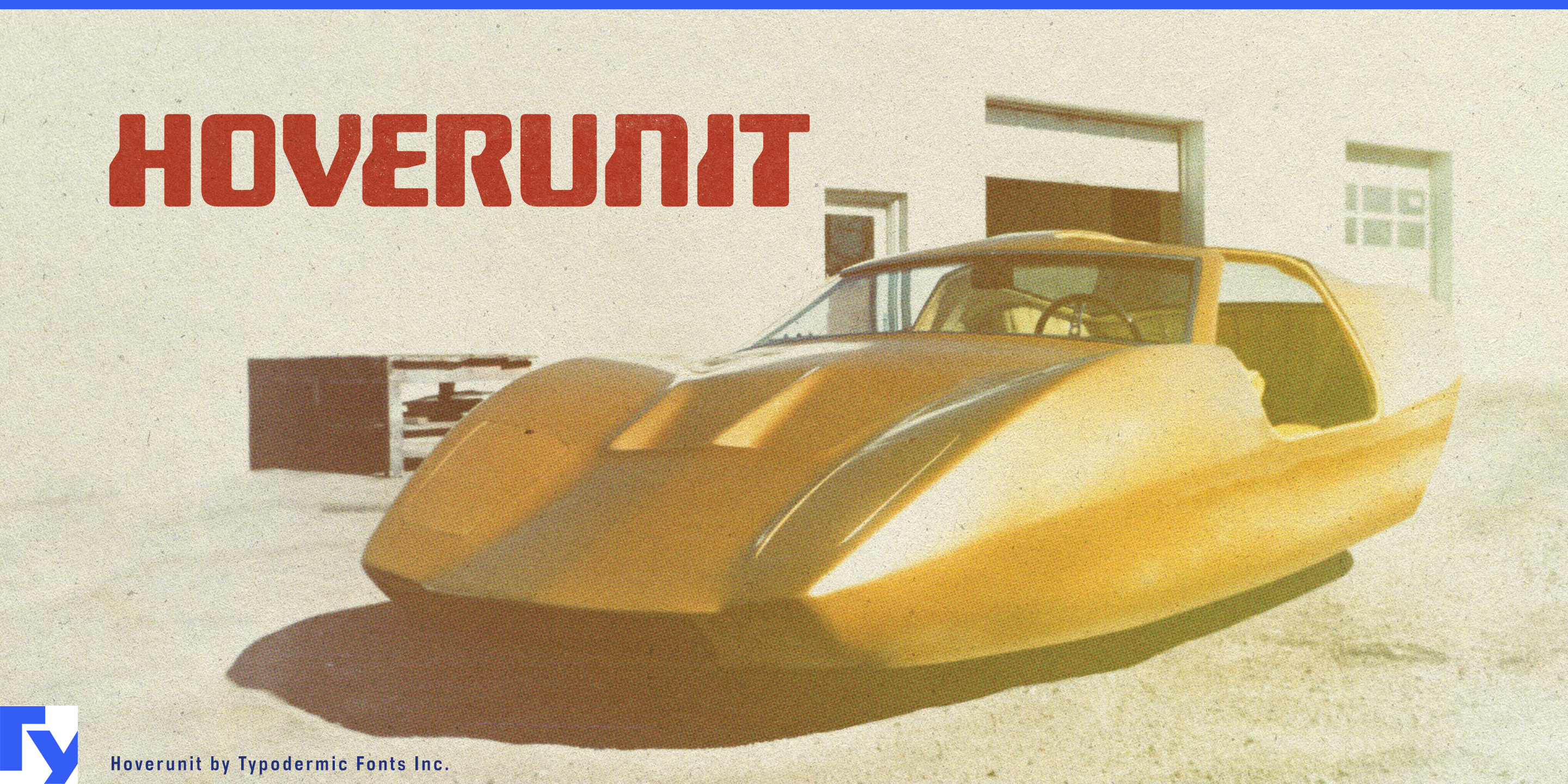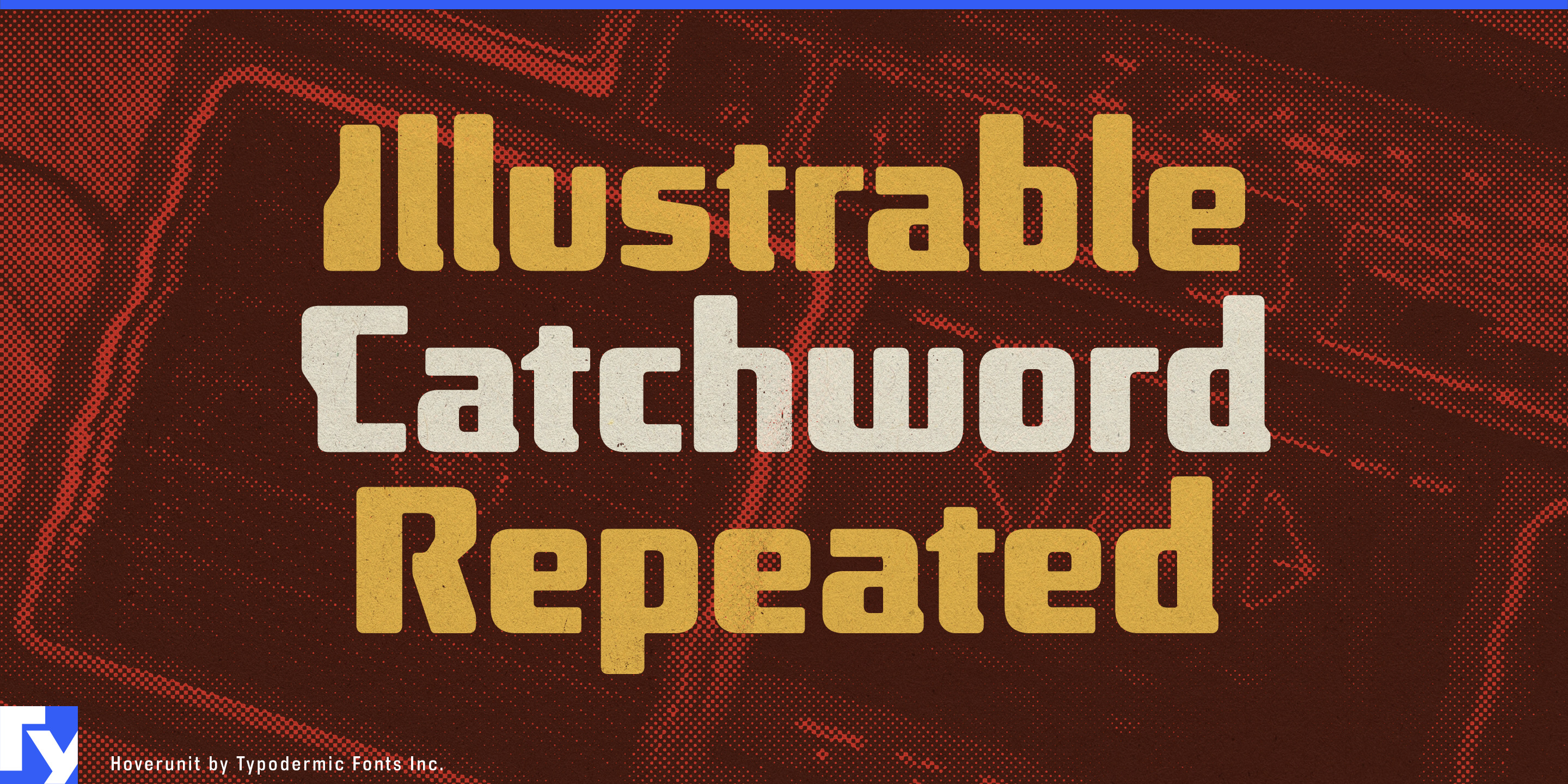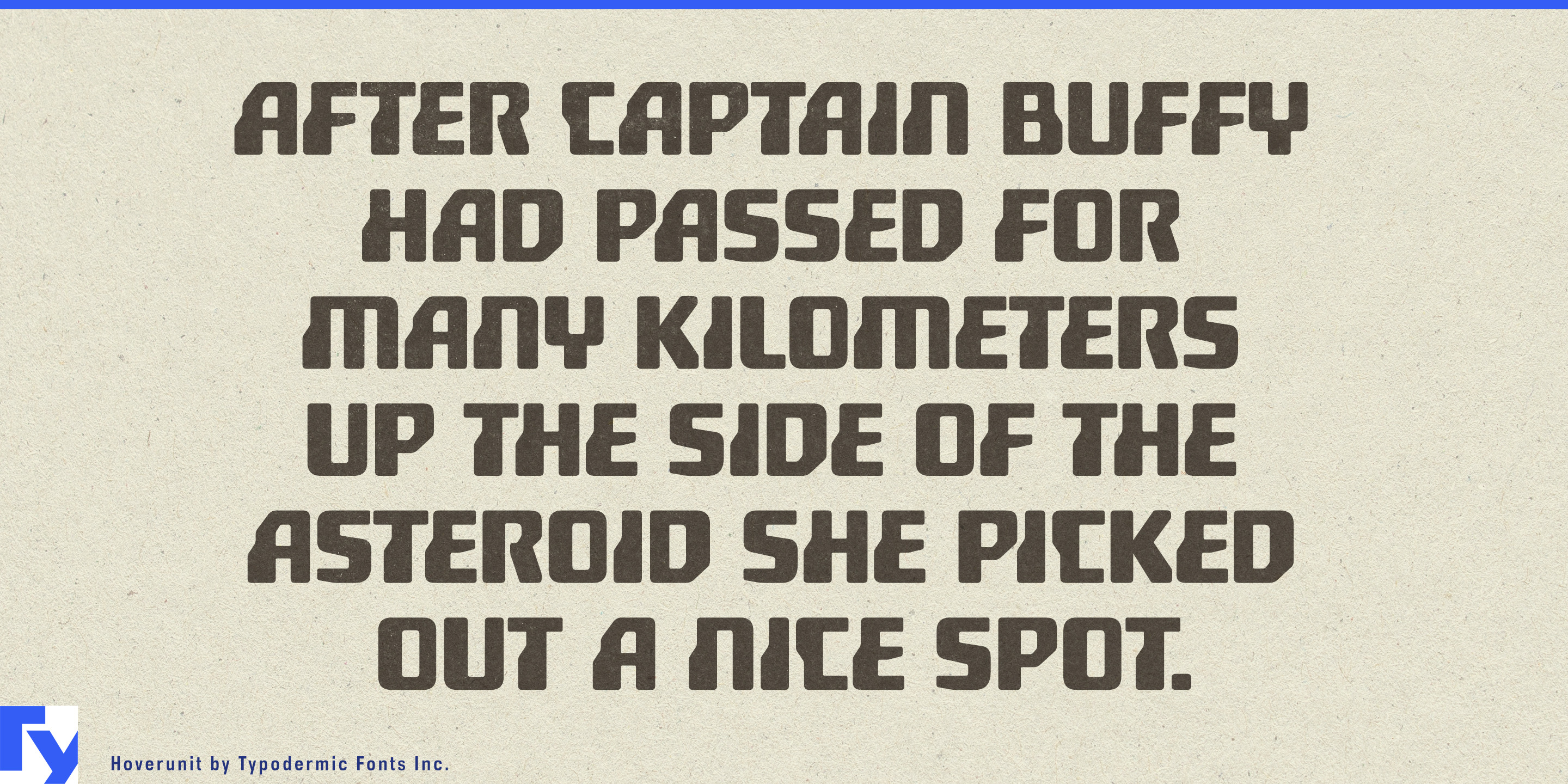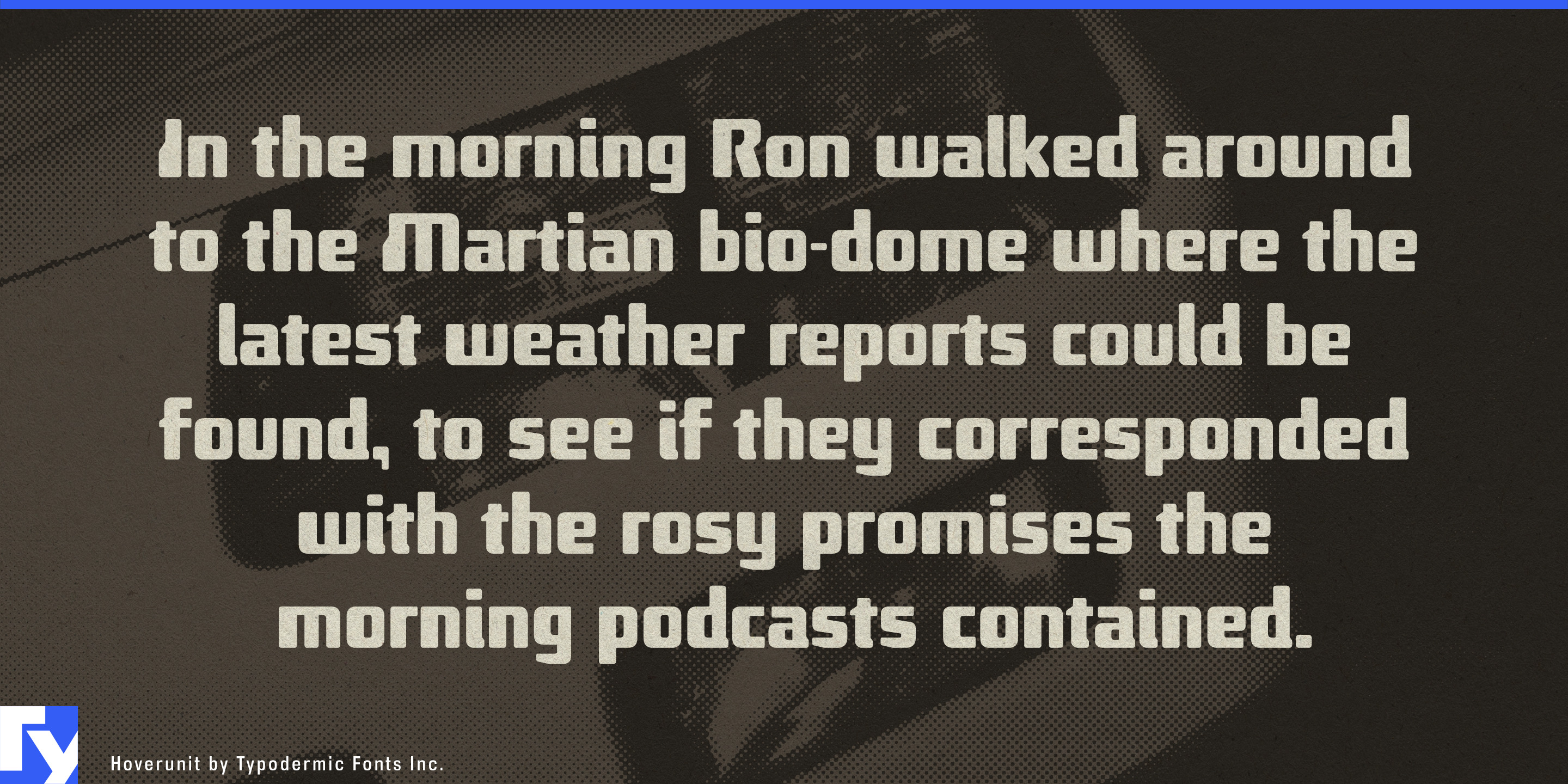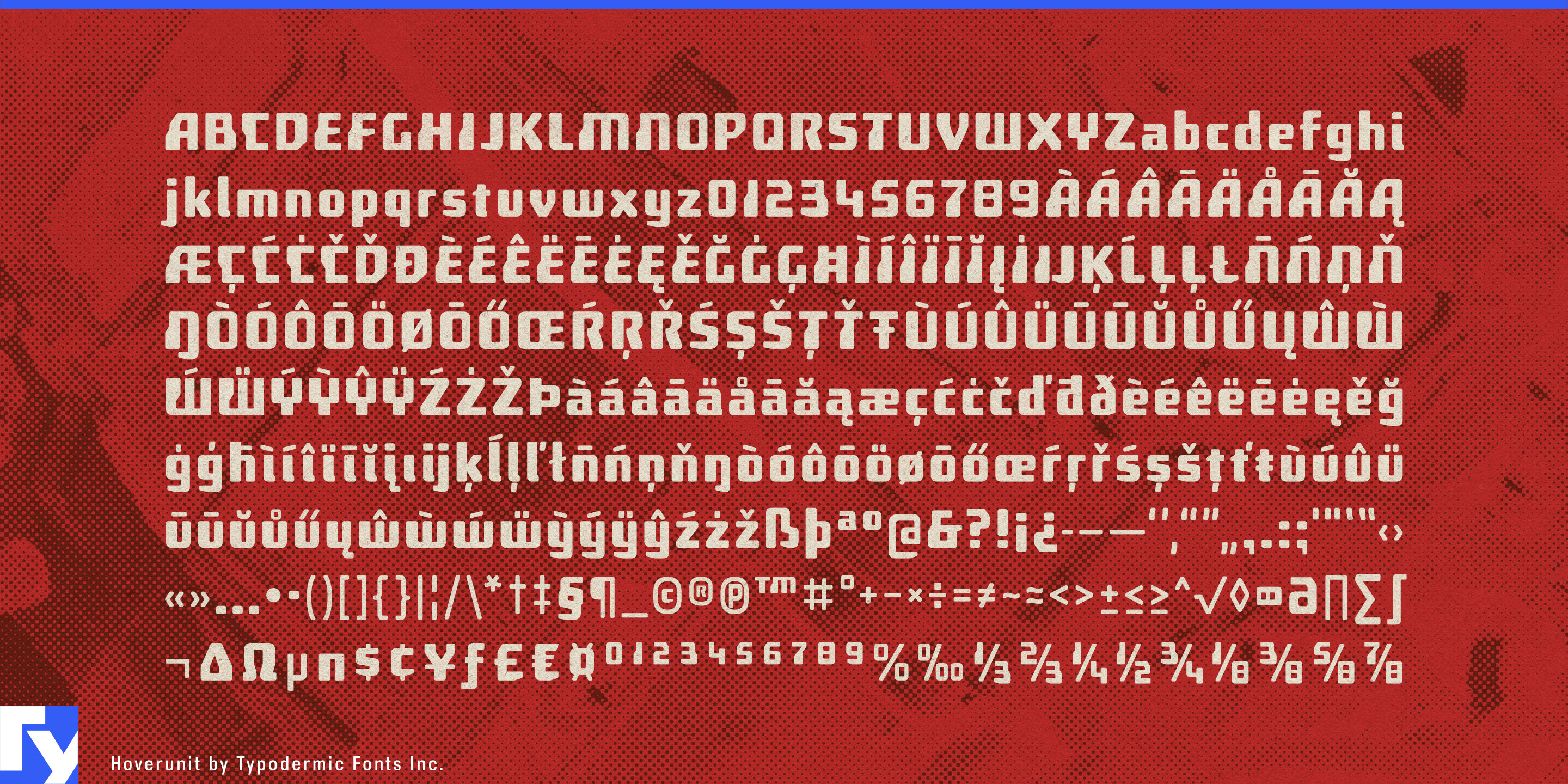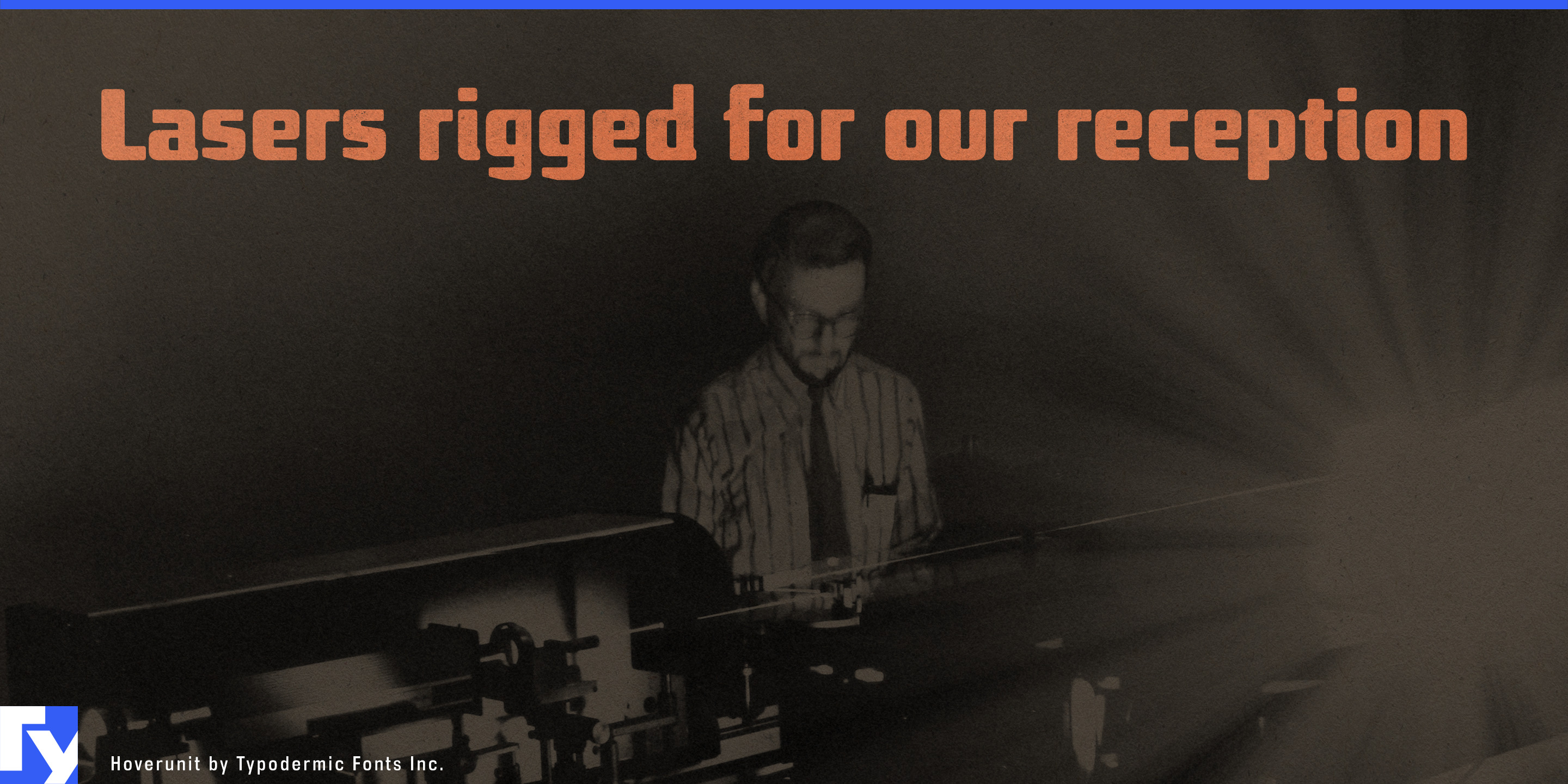
Hoverunit
Hoverunit brings the precision of retro industrial lettering into the here and now. Its squarish, softened forms recall the magnetic ink and optical character recognition faces of the 1960s, but with a clarity and balance that make it equally at home in the modern world. Compact letterforms and softened corners deliver a sturdy, machine-age presence without sacrificing legibility.
It’s the kind of typeface you’d expect on the side of a Cold War prototype vehicle, the blueprint of a lunar habitat, or the control panel of a 1970s deep-sea submersible. In branding, it can anchor a speculative transit map for a future metro system, stamp authority on the packaging of rugged industrial gear, or carry the headline on the cover of a pulp sci-fi serial. It can just as easily serve in denser text—think safety manuals, field guides, or technical exhibits—where you need a distinct voice without losing clarity.
Hoverunit thrives where design calls for both a tactile, engineered feel and a sense of forward motion. Whether you’re charting the next great expedition or chronicling the one that never happened, it keeps your message grounded, legible, and impossible to ignore.